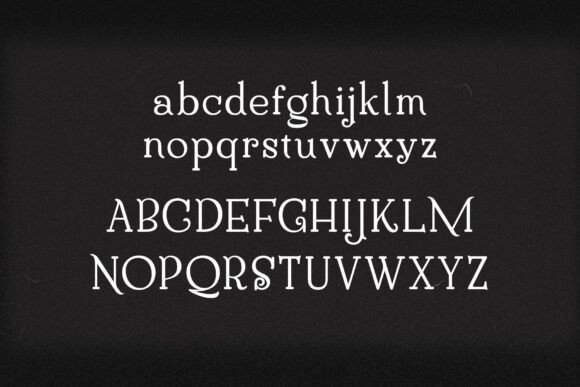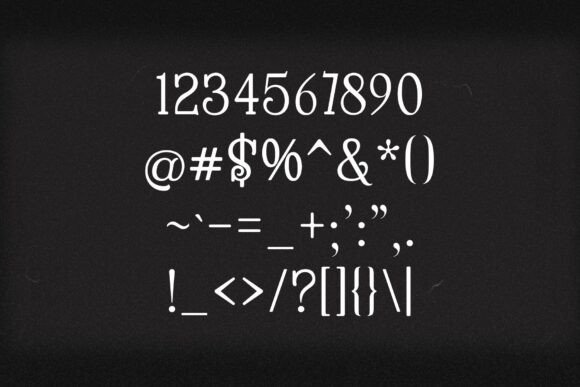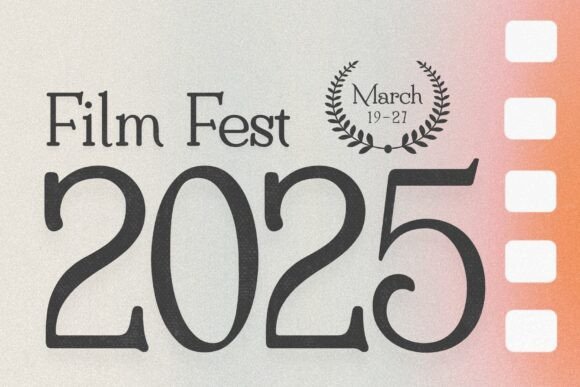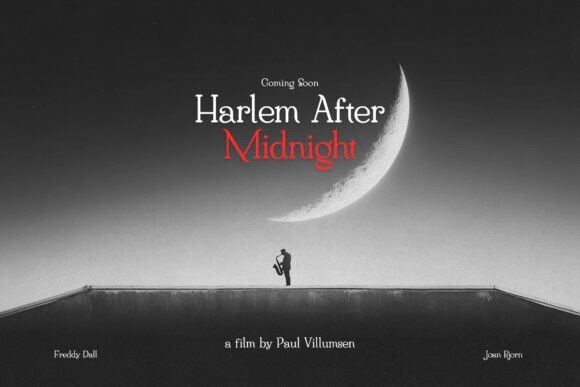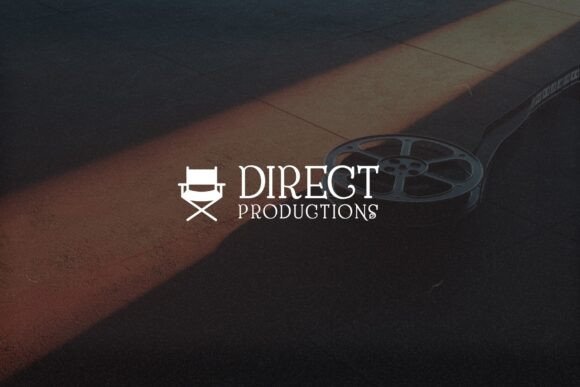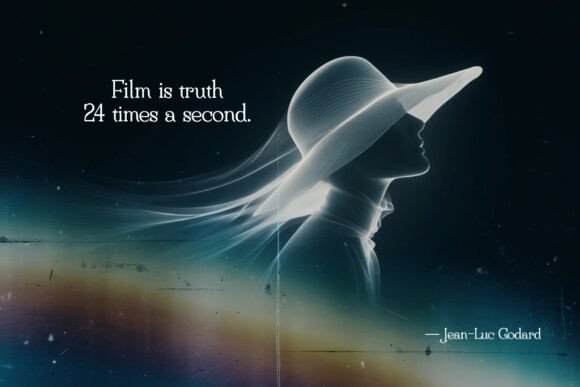
Cinemagic Font: Bringing the Glamour of Old Hollywood to Modern Design
Imagine stepping into a bygone era, where the silver screen flickered to life and the magic of cinema was born. An era of glamour, drama, and enchantment, where iconic movie posters, silent film titles, and art deco marquees set the tone for a century of visual storytelling. Welcome to the world of Cinemagic, a show-stopping typeface that embodies the essence of old Hollywood and brings it to your modern designs.
The Inspiration Behind Cinemagic
Cinemagic draws its inspiration from the golden age of cinema, when movie magic was at its peak and the world was captivated by the allure of the silver screen. The font’s creator carefully studied the iconic typography of vintage movie posters, silent film titles, and art deco marquees, distilling the essence of this bygone era into a modern typeface that exudes sophistication and glamour.
From the elegant curves of classic movie posters to the bold, geometric shapes of art deco signage, Cinemagic’s design is rooted in the visual language of old Hollywood. This font is a love letter to the pioneers of cinema, who dared to dream big and bring their imagination to life on the big screen.
Cinemagic: A Font Fit for the Silver Screen
Cinemagic is more than just a font – it’s an experience. With 28 handcrafted ligatures that flow seamlessly, this typeface is designed to create stunning typographic compositions that captivate and inspire. Whether you’re designing for film, fashion, branding, or editorial work, Cinemagic is the perfect tool to add a touch of old-school glamour to your projects.
Crafted with precision and passion, Cinemagic features a range of design elements that evoke the magic of old Hollywood. From the subtle imperfections of hand-drawn lettering to the precision-crafted lines and curves, every detail of this font has been carefully considered to transport your designs to a bygone era.
Key Features of Cinemagic
- 28 handcrafted ligatures: Cinemagic features a range of ligatures that flow seamlessly, creating stunning typographic compositions that are sure to captivate.
- Inspired by vintage movie posters: The font’s design is rooted in the visual language of old Hollywood, with elegant curves and bold, geometric shapes.
- Art deco influences: Cinemagic’s design incorporates art deco elements, adding a touch of sophistication and glamour to your designs.
- Perfect for film, fashion, and editorial work: Whether you’re designing for the big screen, a fashion brand, or an editorial project, Cinemagic is the perfect tool to add a touch of old-school charm.
Using Cinemagic in Your Designs
Cinemagic is a versatile font that can be used in a range of design applications. Here are a few ideas to get you started:
- Film posters and titles: Use Cinemagic to create eye-catching film posters and titles that evoke the magic of old Hollywood.
- Fashion branding: Add a touch of glamour to your fashion brand with Cinemagic, perfect for logos, packaging, and advertising.
- Editorial design: Use Cinemagic to add a touch of sophistication to your editorial designs, from magazine covers to article titles.
Cinemagic is a show-stopping typeface that brings the glamour, drama, and charm of early 20th-century cinema to your modern designs. With its 28 handcrafted ligatures, art deco influences, and vintage movie poster inspiration, this font is the perfect tool for designers and crafters looking to add a touch of old-school magic to their projects. Whether you’re designing for film, fashion, branding, or editorial work, Cinemagic is your ticket to visual storytelling that captivates like a classic silver screen masterpiece.